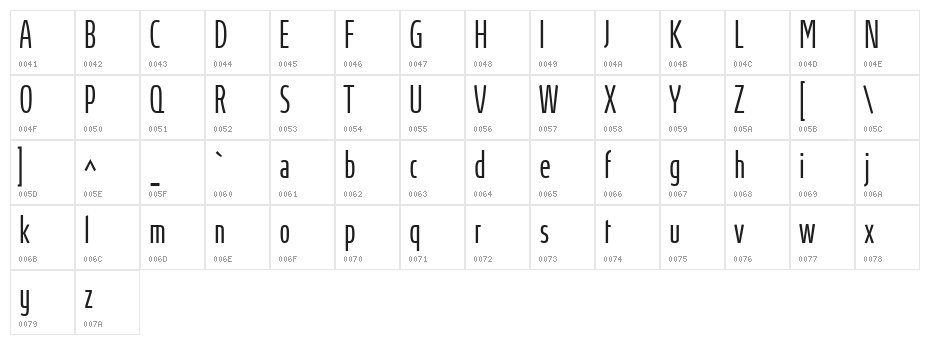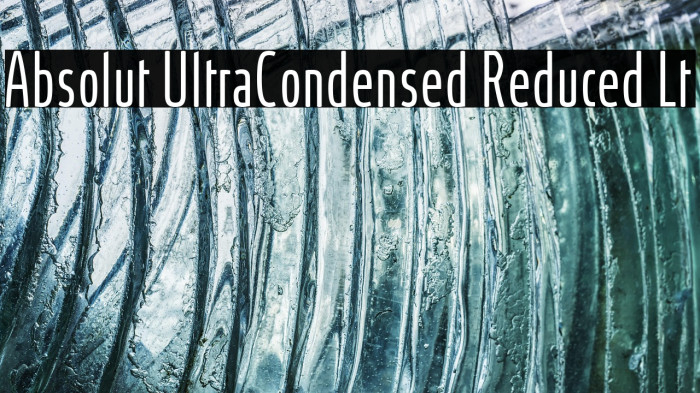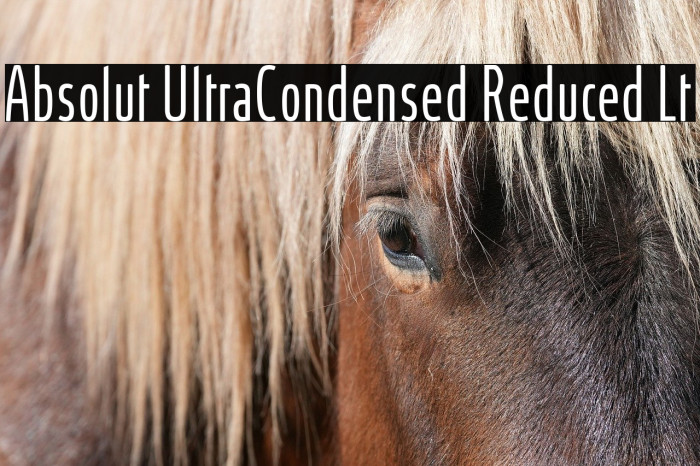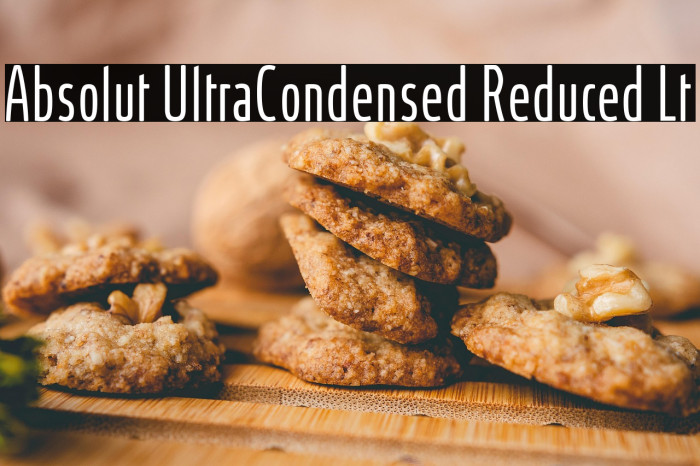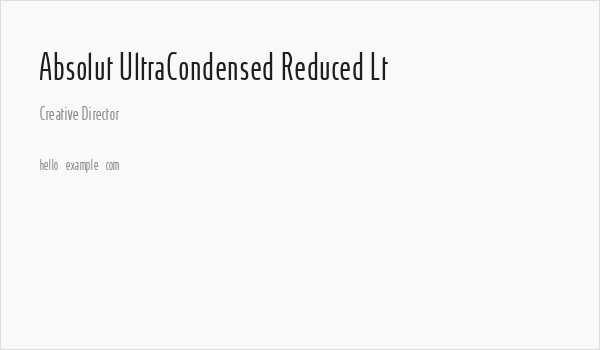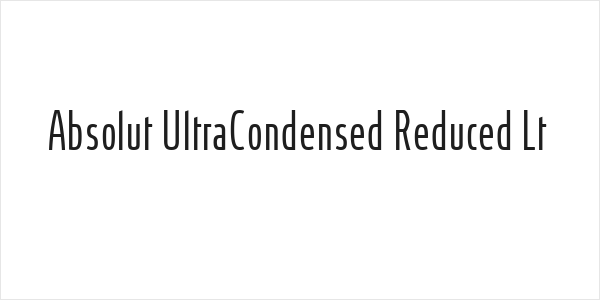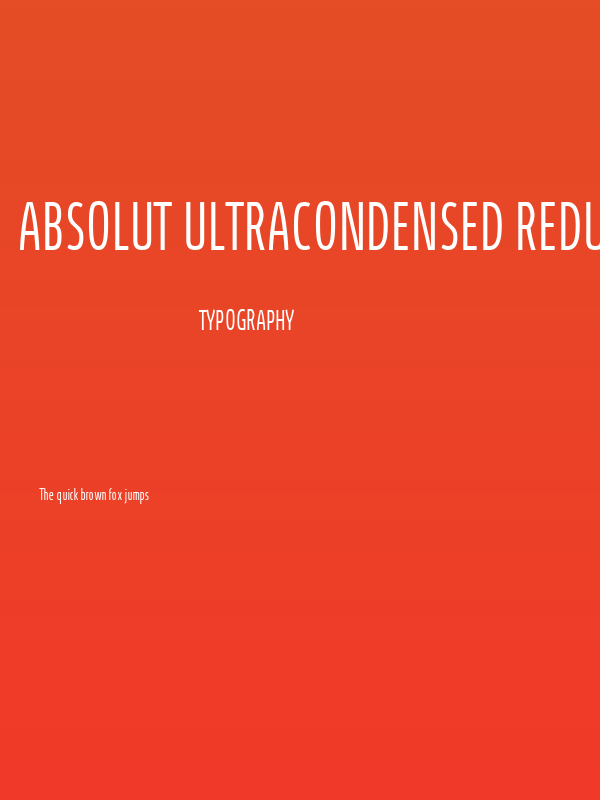
Absolut UltraCondensed Reduced Lt Font
Absolut UltraCondensed Reduced Lt Description
This font features an ultra-condensed style with tall, narrow characters that emphasize verticality. The sans-serif design gives it a clean and modern appearance, making it suitable for contemporary projects. The uniform stroke width across characters provides a consistent look, while the tight character spacing enhances its compact nature. The font's minimalistic approach and lack of decorative elements make it versatile for various design applications. Its legibility is maintained despite the condensed form, making it effective for headlines and short text blocks where space is limited.
| Proposed Projects | Ideal for headlines, posters, and branding where space is limited and a modern aesthetic is desired. |